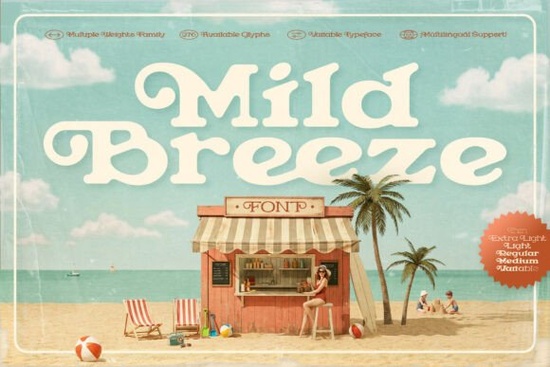
Designers, crafters, and small business owners often look for fonts that bring a sense of warmth and elegance to their work. If you're searching for a versatile serif font with a nostalgic feel, the Mild Breeze Font could be exactly what you need. This font blends classic design elements with a relaxed, approachable style, making it ideal for a wide range of creative projects.
The Mild Breeze Font is inspired by vintage aesthetics, offering a smooth and refined appearance that works well in both digital and print formats. Whether you're designing packaging, creating invitations, or working on editorial layouts, this font adds a touch of sophistication without being too formal. Its subtle details make it stand out while still maintaining readability across different sizes and mediums.
One of the standout features of the Mild Breeze Font is its range of weights. It comes in five different styles, from Light to Medium, giving you flexibility depending on your design needs. For even more control, there's also a Variable Font version available. This means you can adjust the weight dynamically within a single file, saving time and simplifying your workflow.
Why choose Mild Breeze for your design projects?
If you're looking for a font that feels both timeless and modern, the Mild Breeze Font is a great choice. Its design makes it particularly well-suited for branding that wants to convey a sense of tradition and warmth. The font’s character is gentle yet distinctive, which helps your designs stand out without being overwhelming.
For those who work with print-on-demand products, the Mild Breeze Font offers a reliable option that looks great in both high-resolution and smaller formats. Its clean lines and balanced structure ensure that it remains legible and visually appealing no matter where it's used.
Whether you're a creative hobbyist or a professional designer, the Mild Breeze Font provides a stylish and functional solution for your typography needs. Its versatility and ease of use make it a valuable addition to any font library.
How to use Mild Breeze in different design contexts
When working with the Mild Breeze Font, consider how it pairs with other typefaces. Its serif style pairs well with sans-serif fonts for contrast, making it a good choice for headings or titles. For body text, using a lighter weight can help maintain readability while still keeping the overall design cohesive.
For branding purposes, the font can be used in logos, stationery, and marketing materials. Its warm character helps create a friendly and trustworthy impression, which is especially useful for businesses aiming to connect with their audience on an emotional level.
In editorial design, the Mild Breeze Font can add a touch of elegance to magazine layouts, book covers, or blog headers. Its nostalgic feel can enhance the storytelling aspect of your content, making it more engaging for readers.
Exploring similar fonts for your collection
If you're ready to add the Mild Breeze Font to your collection, you can find it on Creative Fabrica. This platform offers a variety of high-quality fonts that cater to different design needs. You can explore more options by visiting the site directly.
Mild Breeze Font is just one example of the many fonts available for creative professionals. Whether you're working on a personal project or a client’s design, having access to a diverse range of typefaces can greatly enhance your work.
Before finalizing your design, always test the font in different sizes and backgrounds to ensure it looks good in all contexts. This will help you make the most of its visual appeal and functionality.
As you continue to build your design toolkit, consider adding the Mild Breeze Font to your list of go-to typefaces. Its combination of elegance, versatility, and nostalgic charm makes it a valuable resource for anyone involved in visual design.
Take a moment to explore the font and see how it fits into your current projects. You may find that it becomes a favorite for future designs as well.
Quick checklist:
- Test the Mild Breeze Font in different sizes and formats
- Consider pairing it with other fonts for contrast and balance
- Use the Variable Font version for seamless weight adjustments